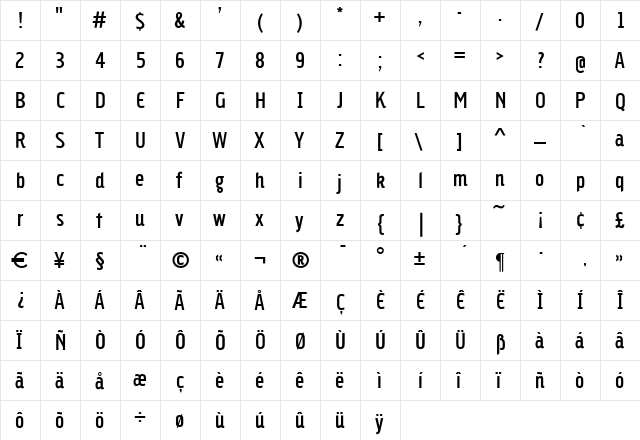
Hybrid Regular
| Foundry | \ Fountain/Peter Bruhn, Sweden |
Design Context for Hybrid Typeface
Hybrid offers clean, dependable letterforms without strong stylistic allegiance, making it a practical choice for designers who need flexibility.